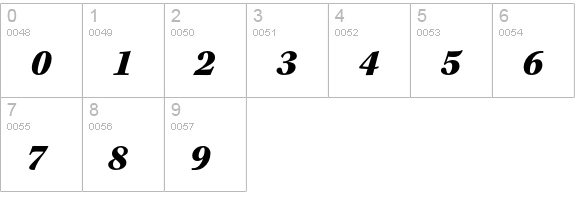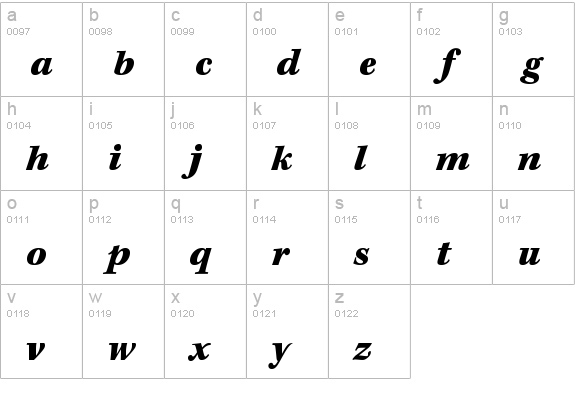
Kepler Std Black Italic Caption Font Details
Kepler Std Black Italic Caption is a maximum-weight, dramatic, italic variant in the Kepler typeface family \xE2\x80\x94 well suited to maximum-impact headlines, posters, and packaging.
The Kepler Std Black Italic Caption font is a visually striking typeface that captivates with its boldness and elegance. It exudes a sense of sophistication and professionalism, making it perfect for headlines, captions, and other attention-grabbing designs. With its sleek and slanted italic style, this font adds a touch of modernity and flair to any project. The distinct letterforms are carefully crafted, allowing for easy readability while maintaining a unique and eye-catching appeal. Whether used in print or on the web, the Kepler Std Black Italic Caption font demands attention and effortlessly communicates your message. What makes this font even more appealing is that it is available for free download at FontsMarket.com. This means that you can enjoy the beauty and versatility of the Kepler Std Black Italic Caption font without any cost. Simply visit FontsMarket.com and enhance your designs with this exceptional typeface. Don't miss out on the opportunity to elevate your typography game with the Kepler Std Black Italic Caption font. Download it for free today and take your designs to new heights of creativity and professionalism.